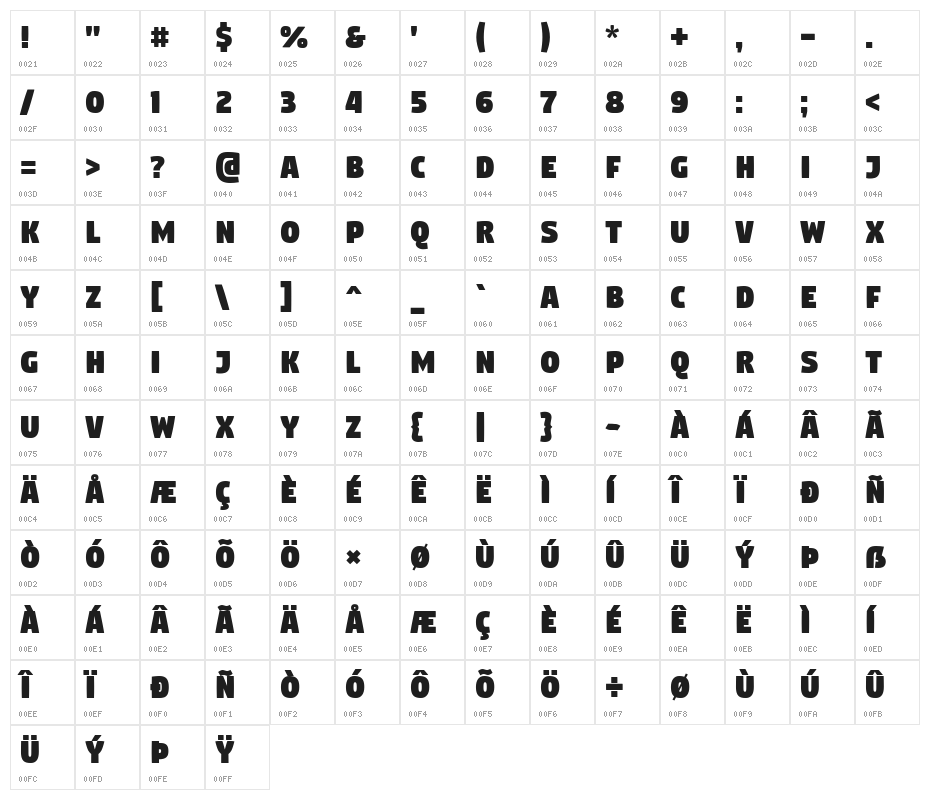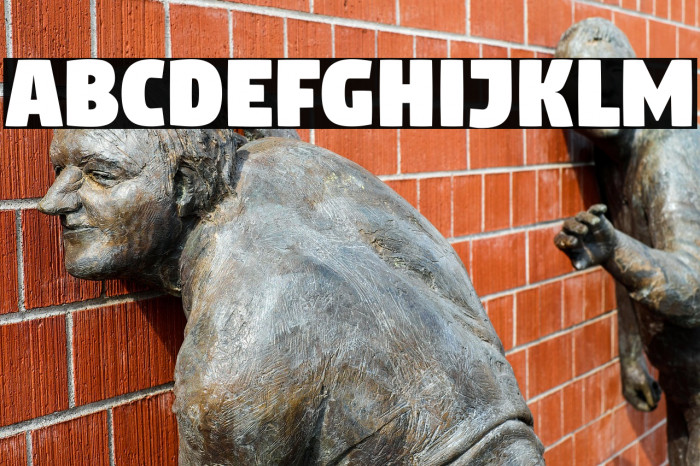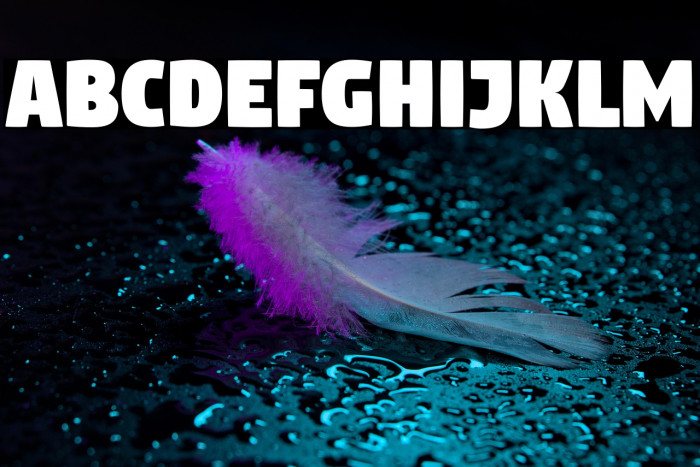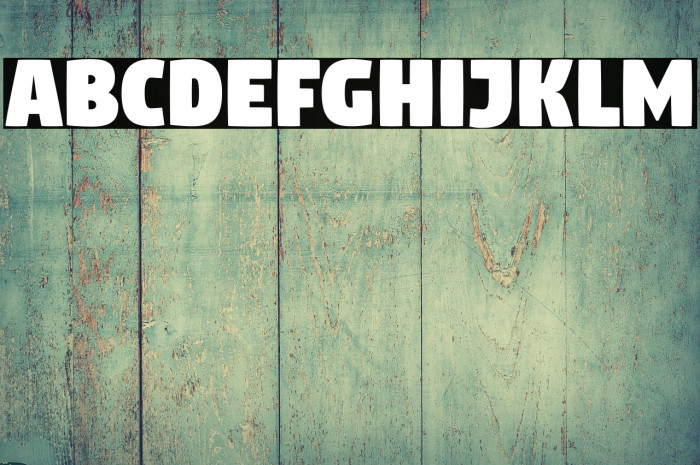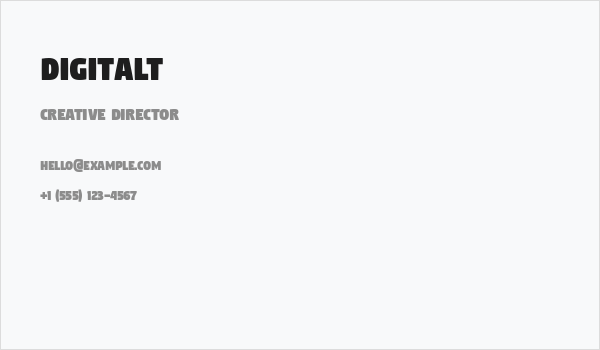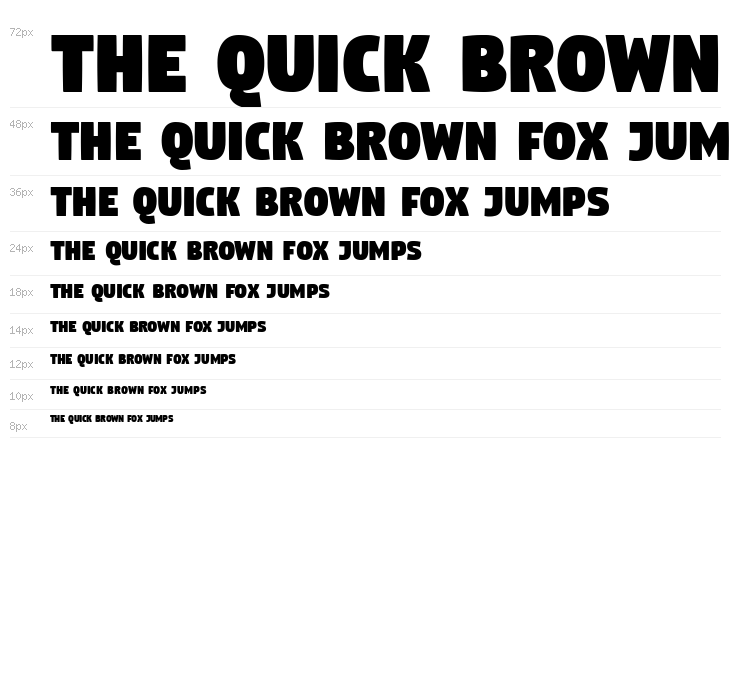
Digitalt Font
Digitalt Description
This font features bold, heavy strokes with a strong presence, making it ideal for impactful designs. The characters are uniformly wide, with a consistent thickness throughout, giving it a robust and solid appearance. The uppercase and lowercase letters maintain a uniform height, contributing to a cohesive look. The numbers and special characters are equally bold, ensuring they stand out in any design. This font's style is reminiscent of vintage poster typography, with a modern twist that makes it versatile for various applications.
| Overall Style | Vintage, Modern |
| Proposed Projects | Ideal for posters, headlines, branding, and any design requiring a strong visual impact. |